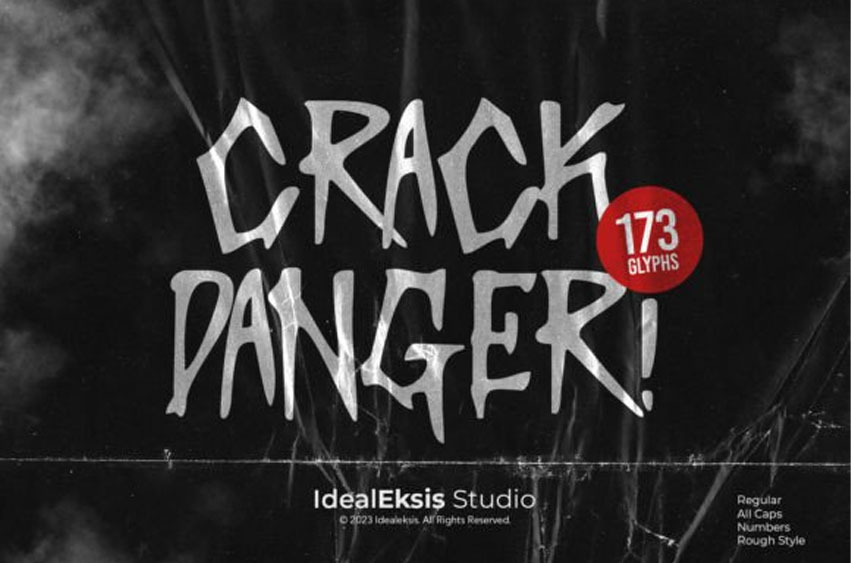
Crack Danger Font
Crack Danger Font, as the name suggests, embodies an essence of horror and suspense in its design. This chilling typeface seamlessly blends elements of fear and intrigue, making it a perfect choice for projects that seek to evoke a sense of darkness and foreboding.
The letters are meticulously crafted with jagged edges, irregular strokes, and unsettling angles, contributing to an overall feeling of unease.